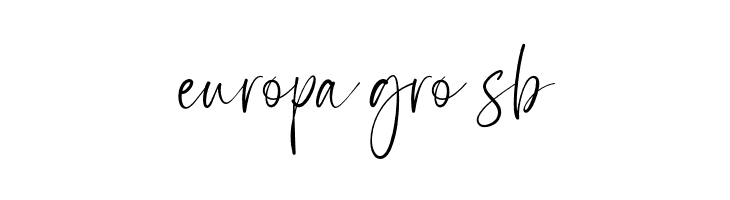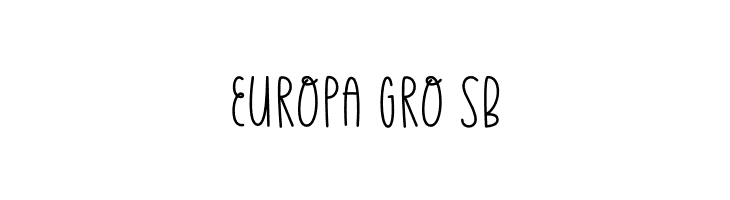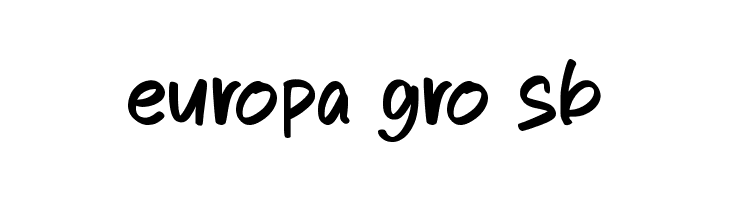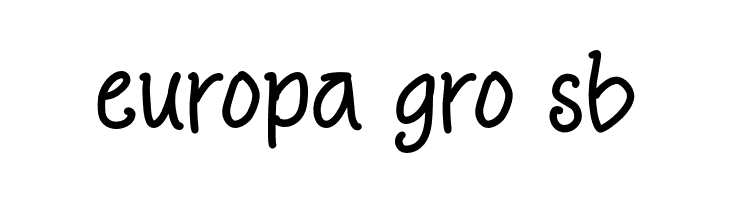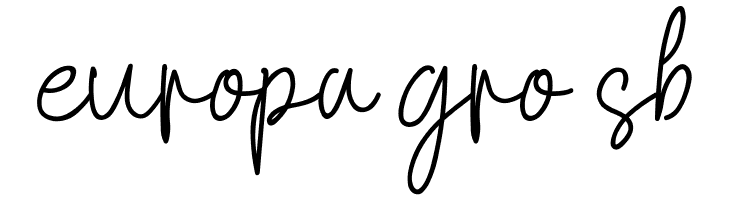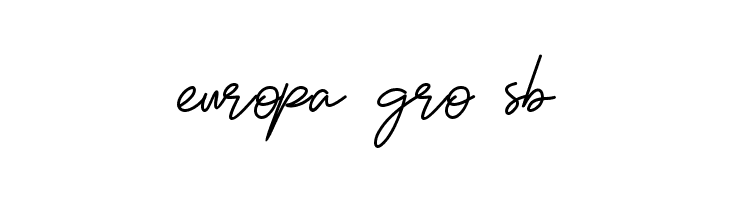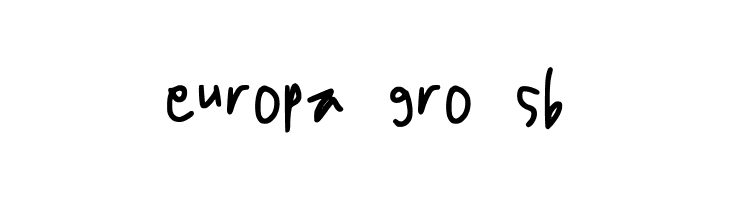
Casual handwritten font with rounded edges.
Playful handwritten font with a casual style.
Casual handwritten script font.
Handwritten-style font with a casual look.
Elegant handwritten script font.
Elegant and casual handwritten script font.
Casual handwritten script font.
Casual handwritten font with playful strokes.
Playful handwritten font with a casual style.